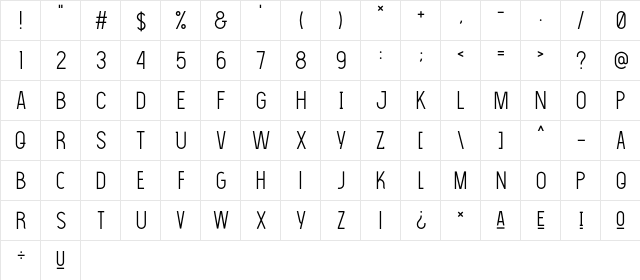
The Light Font Regular
Design Context for The Light Font Typeface
The Light Font offers clean, dependable letterforms without strong stylistic allegiance, making it a practical choice for designers who need flexibility. Its slender proportions lend an understated elegance to any composition.